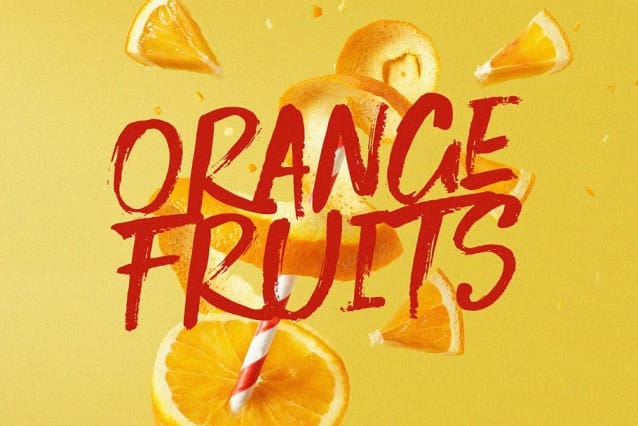
Gregean Font
Gregean Font is a relaxed brush font with a fine grit texture. This font has an irregular treatment between characters to give it a more realistic look. Use lowercase and uppercase for alternate characters to suit. Suitable for use on title designs such as book titles, stationery designs, quotes, branding, logos, clothing, invitations, greeting cards, t-shirts, packaging designs, posters, and others.
The Gregean Brush has the texture of a dry brush pen and the Solid is a slightly cleaner version.